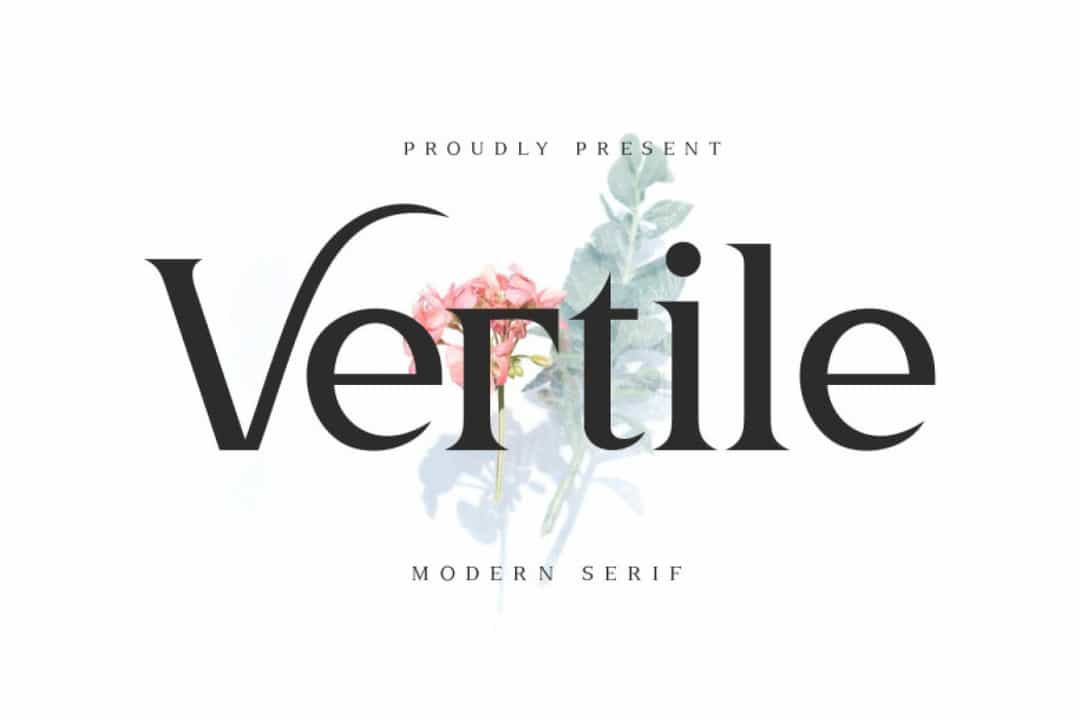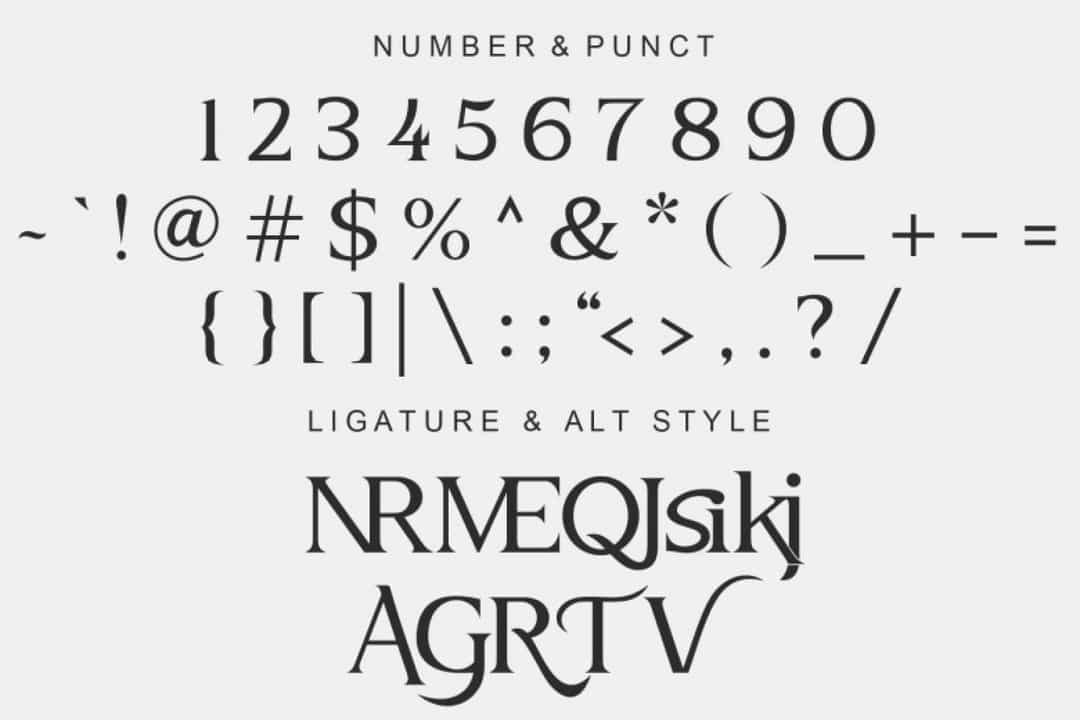
Vertile is an elegant and striking serif font with soft curves, making it the ideal choice for editorial or fashion designs. When included in your designs, you’ll love its results.